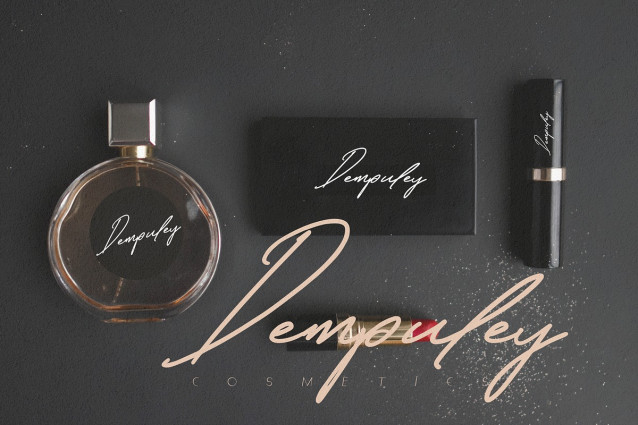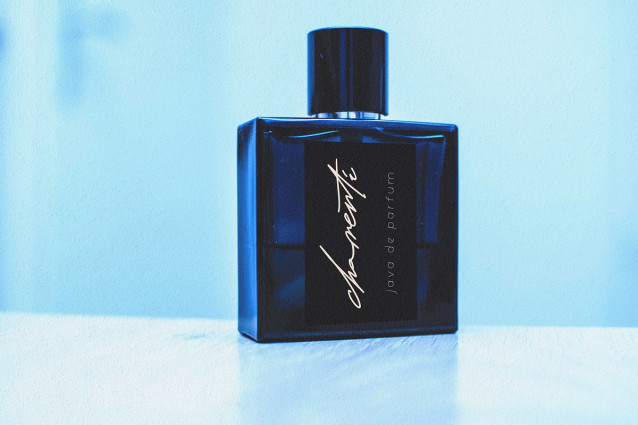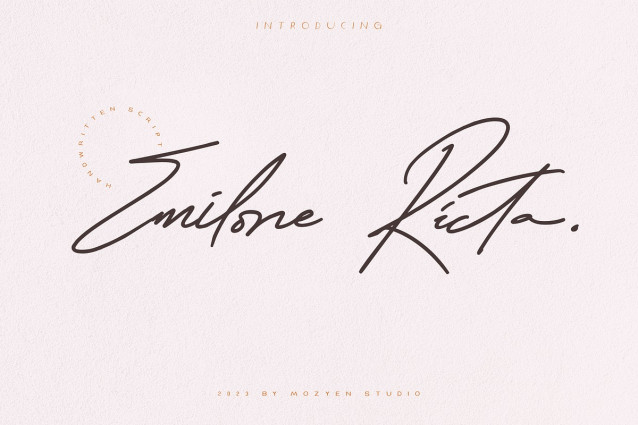
Emilone Ricta Font
Emilone Ricta Font – This is perfect for your feminine design, you can also make a branding such as cosmetics products, Branding photography, invitation designs or your trademark. Emilone Ricta Handwritten is an elegant and flowing handwritten font. It is PUA encoded which means you can access all of the glyphs and swashes with ease! It features a varying baseline, smooth lines, gorgeous glyphs and stunning alternates. It maintains its classy calligraphic influences while feeling contemporary and fresh. Fall in love with this font and bring your projects to the highest levels!